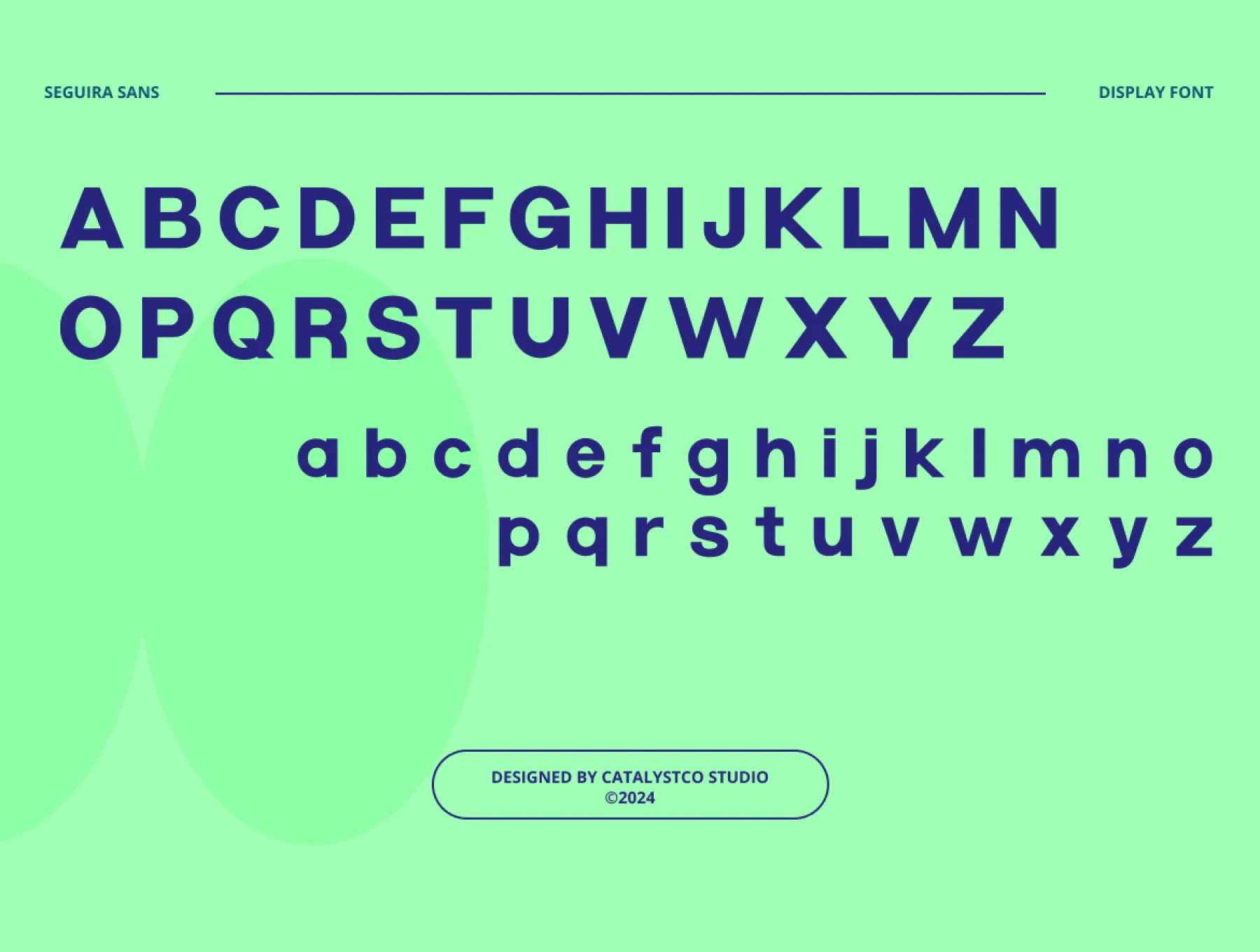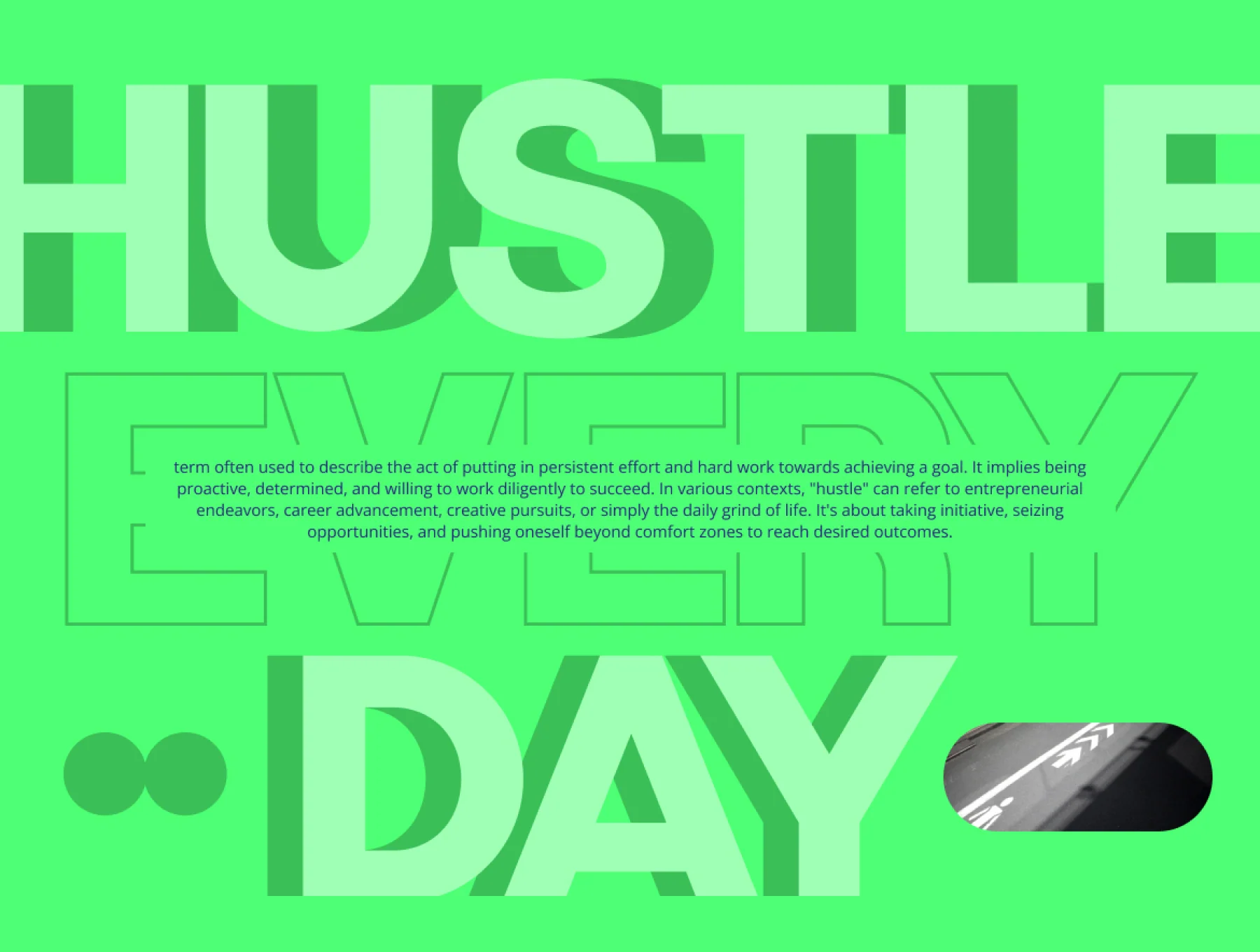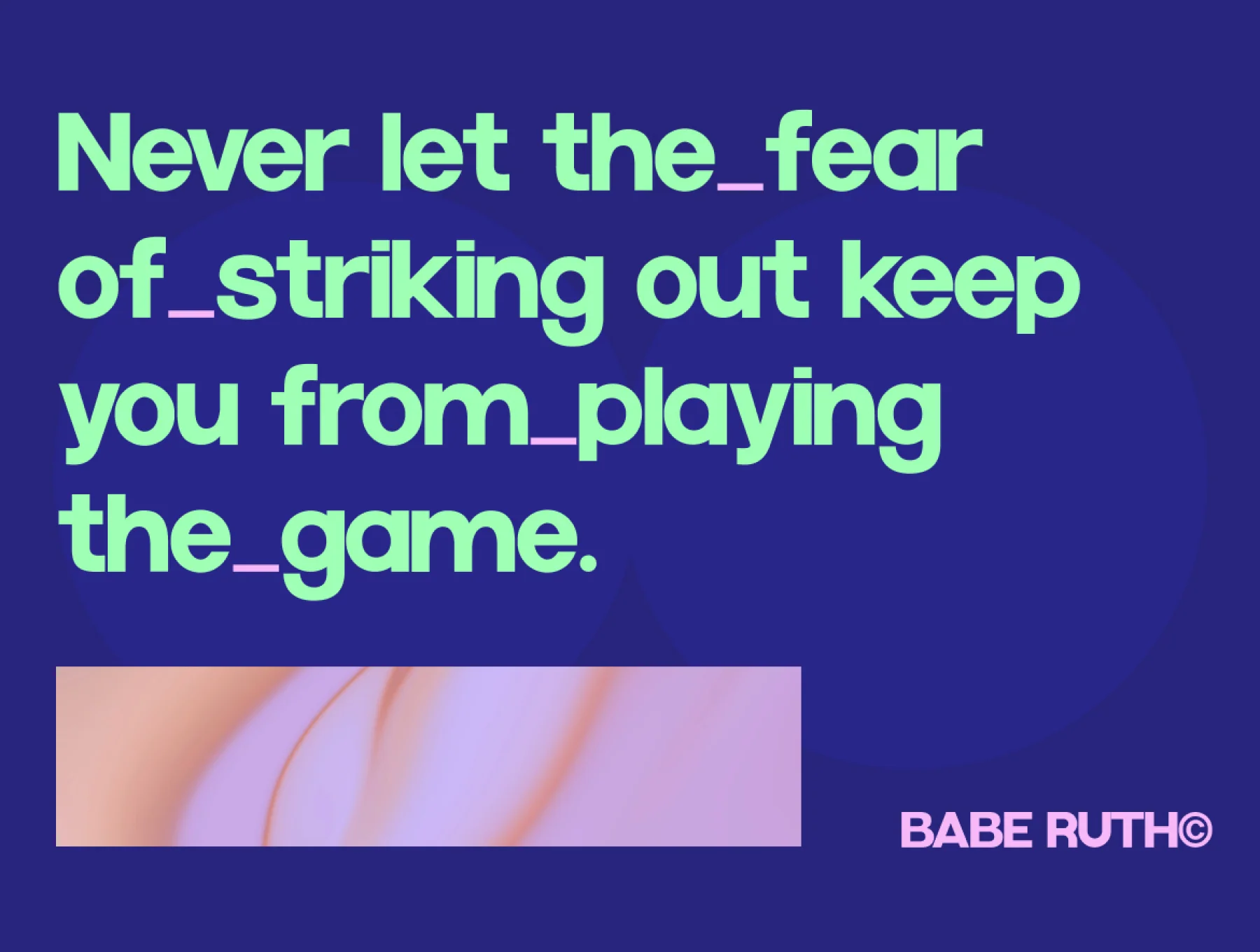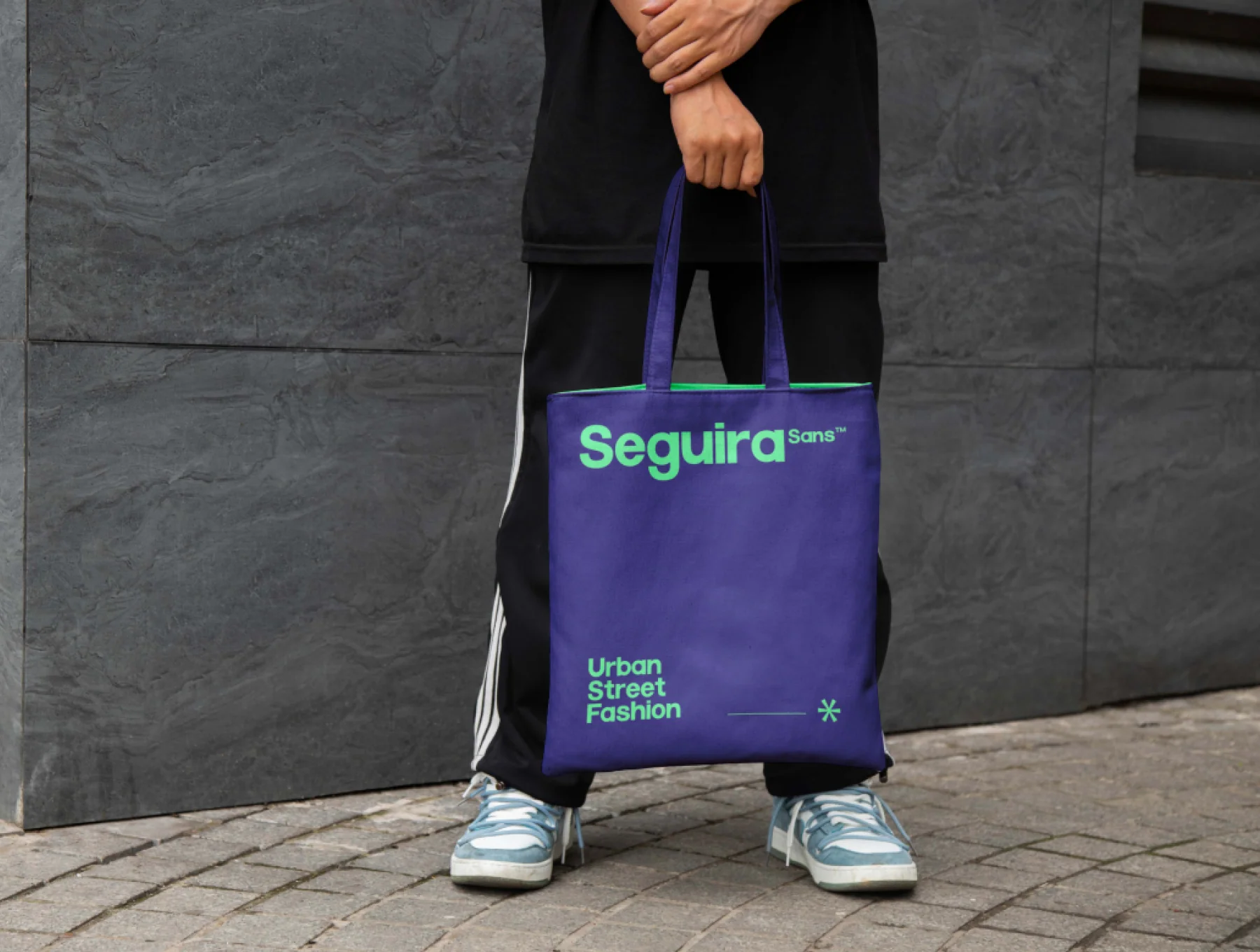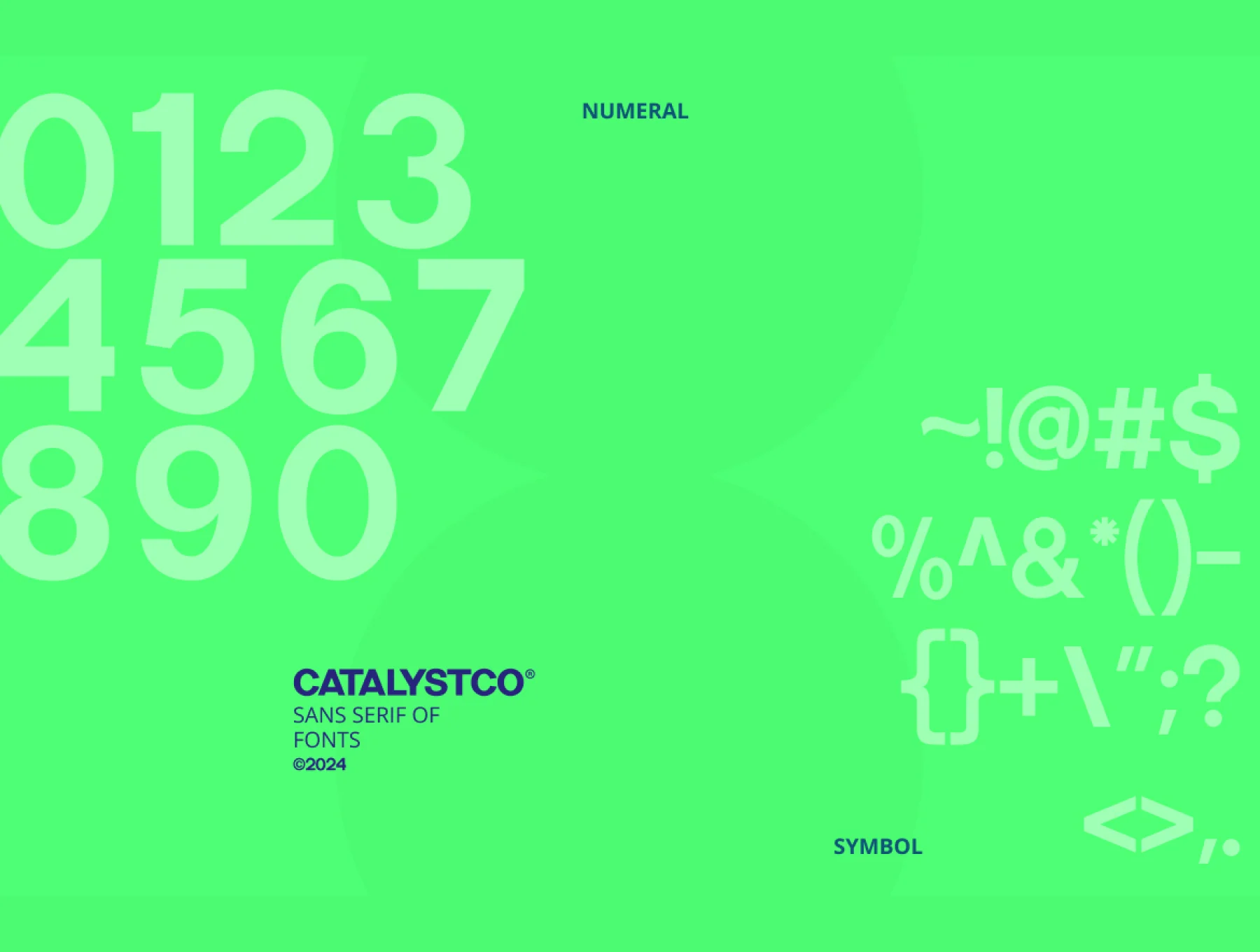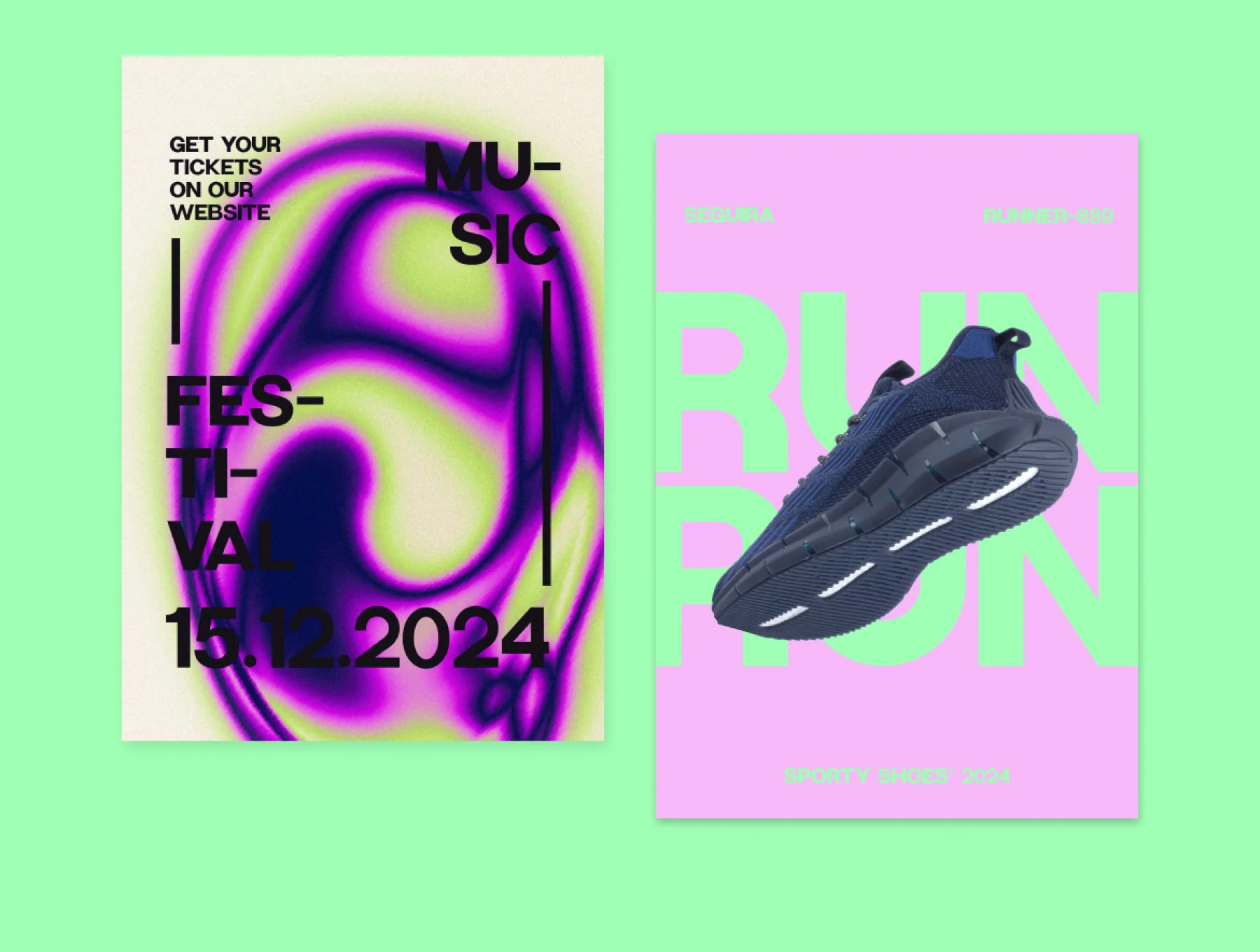
Seguira Sans Serif Font
Clean sans serif typeface
Capital & small letters
Ligature & stylistic alternates
Seguira Sans is a bold geometric sans-serif with a modern, futuristic feel. Its clean forms, wide uppercase, smooth lowercase, ligatures, alternates, numerals, punctuation, and TTF, OTF, WOFF files suit branding, posters, logos, packaging, social media, web displays, ads, fashion, tech, and more.